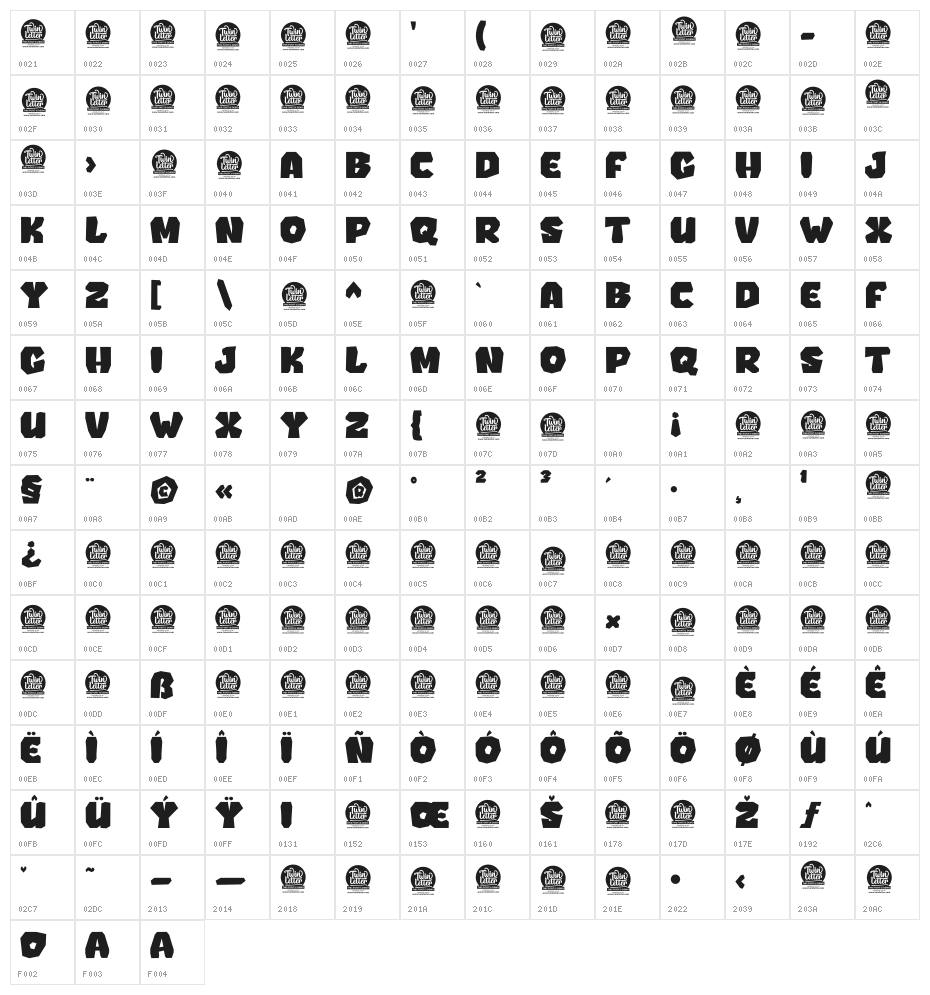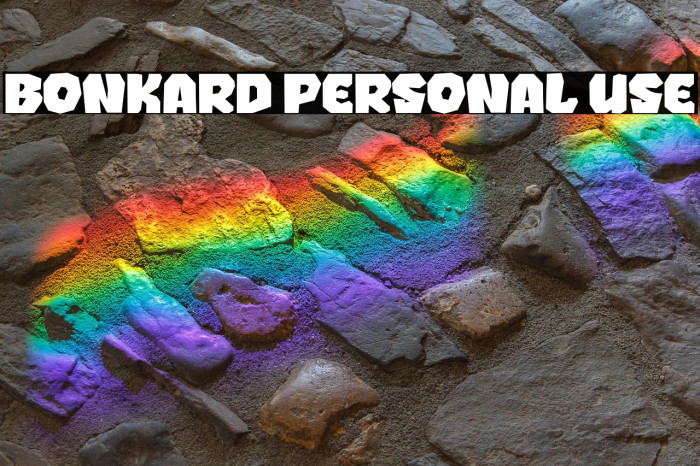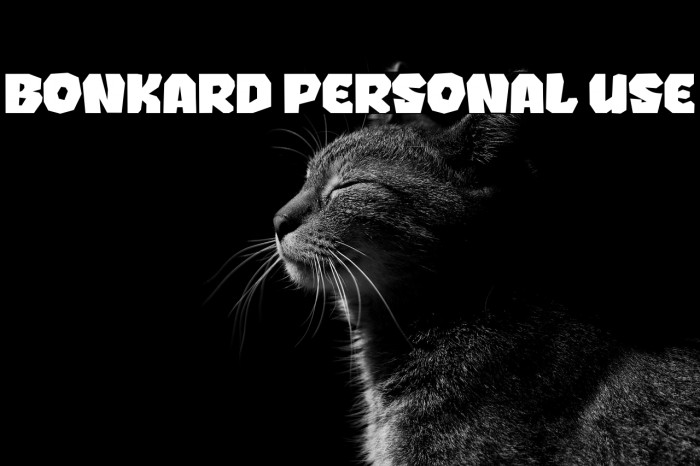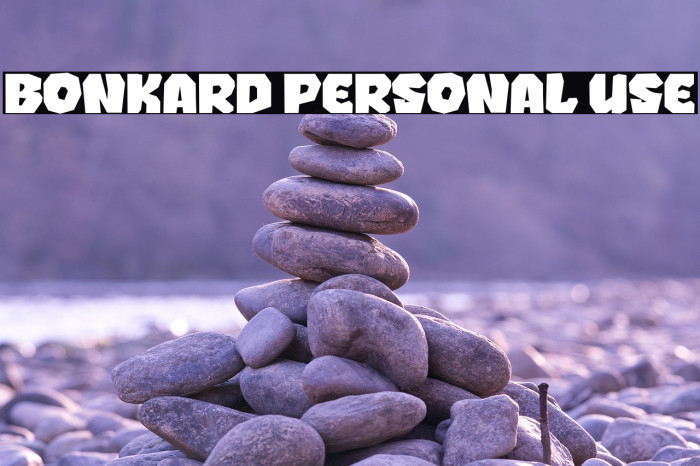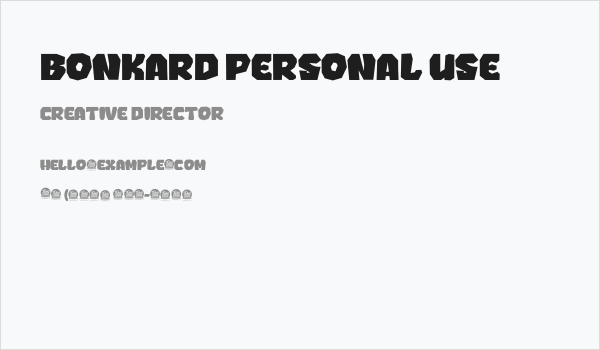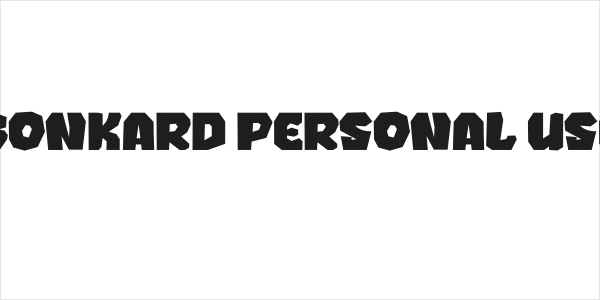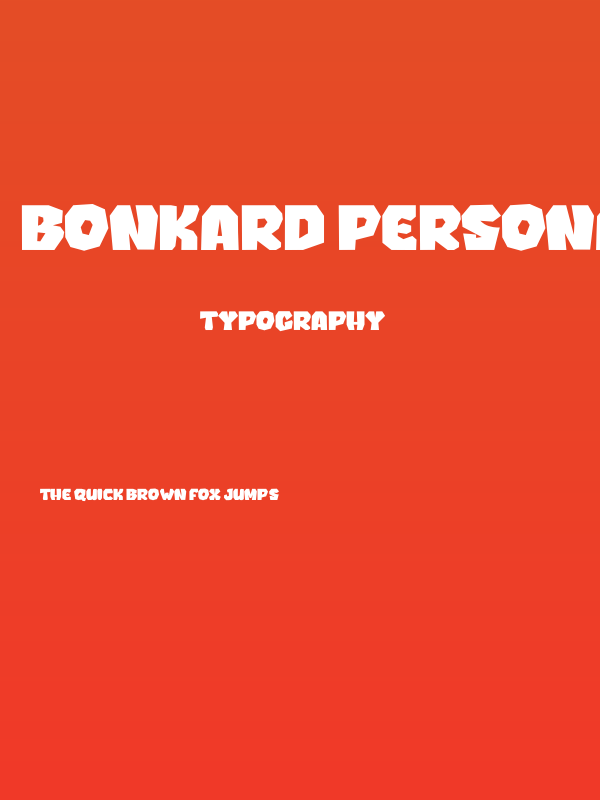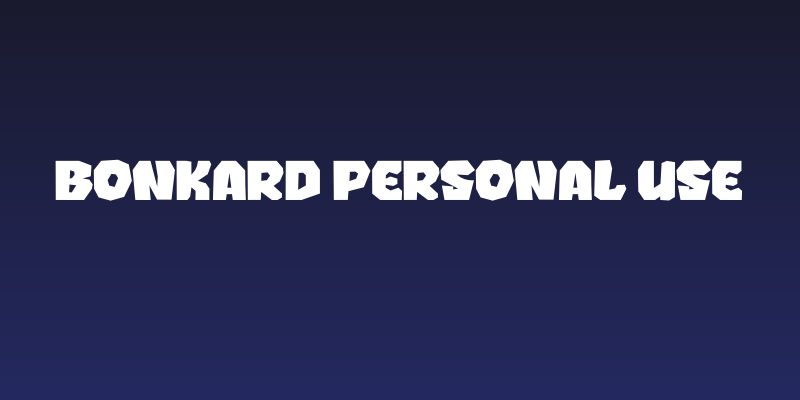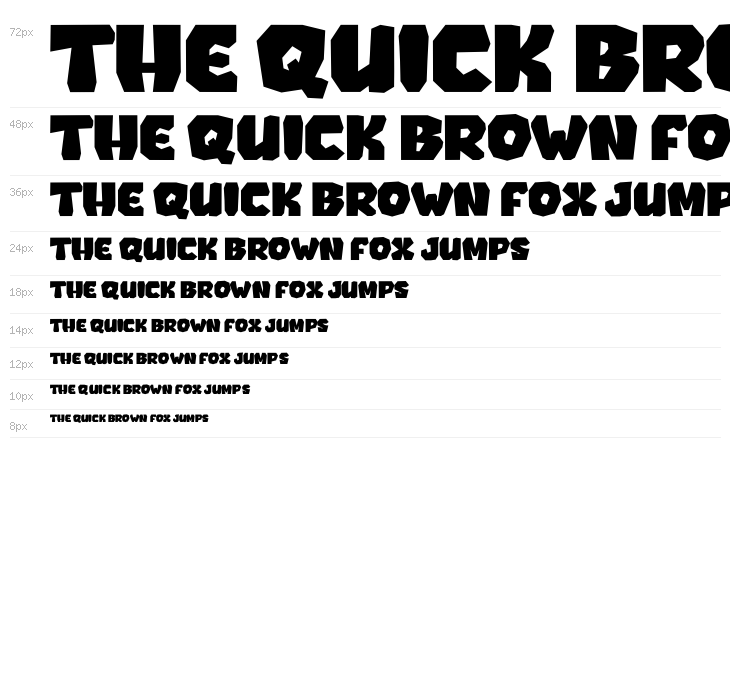
BONKARD PERSONAL USE Font
BONKARD PERSONAL USE Description
This font features bold, angular characters with a strong geometric influence. The letters are heavily stylized, with sharp edges and a blocky appearance that gives them a modern, edgy feel. The uppercase letters dominate the design, with consistent height and width, creating a uniform and cohesive look. The font's boldness makes it stand out, ideal for attention-grabbing headlines or titles. The absence of lowercase letters and numbers suggests a focus on impactful, statement-making text. The overall style is decorative and display-oriented, perfect for projects that require a strong visual impact.
| Proposed Projects | Ideal for posters, logos, branding, and any project needing a bold, modern aesthetic. |